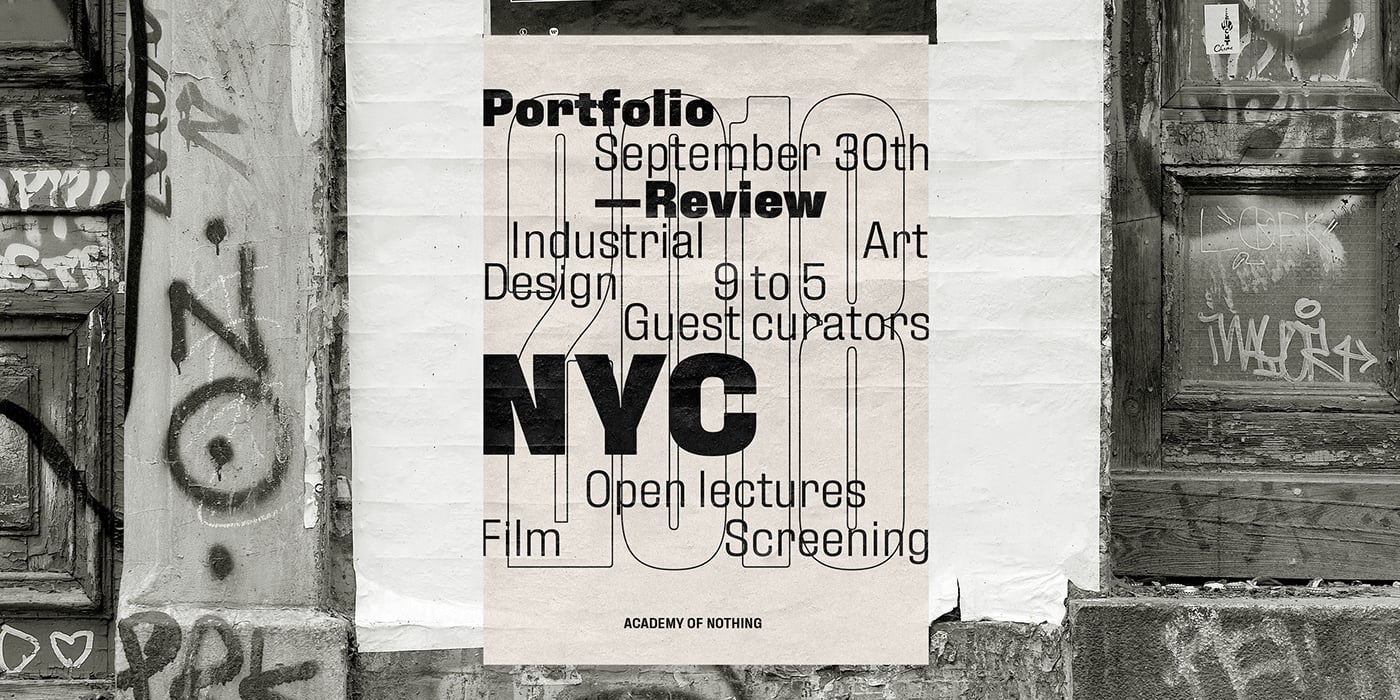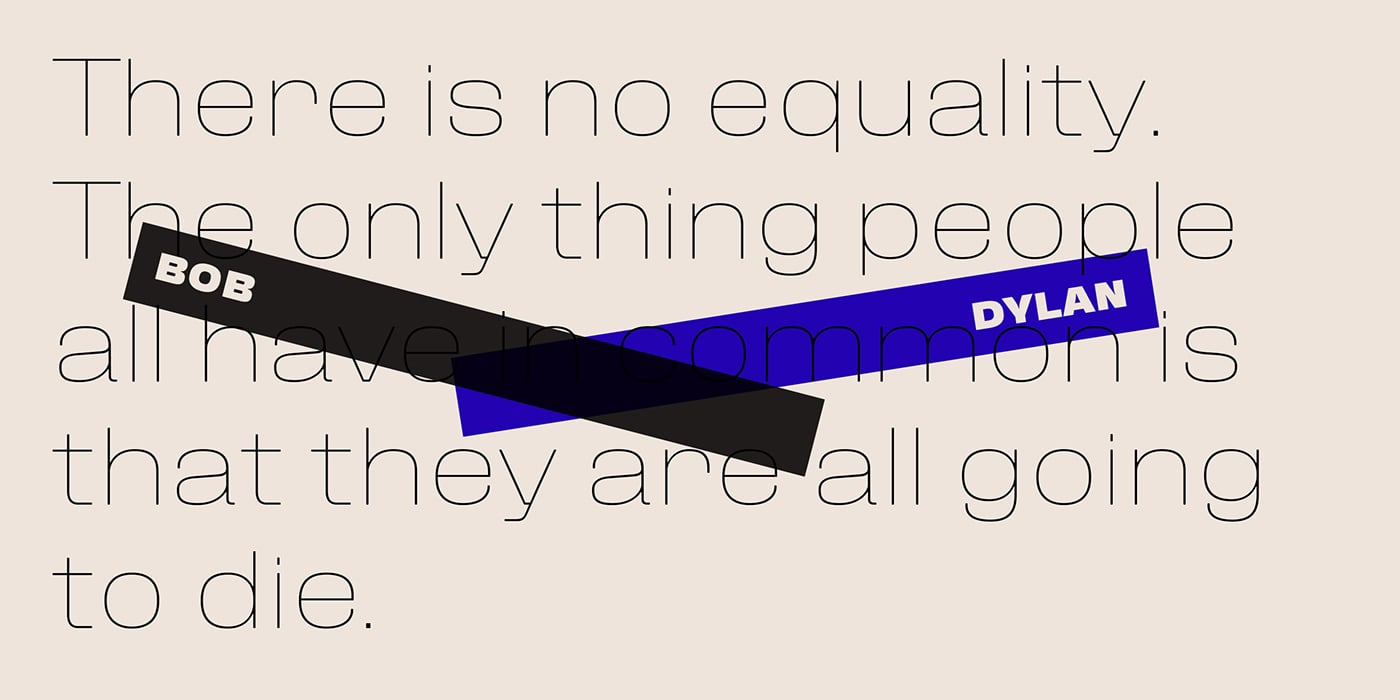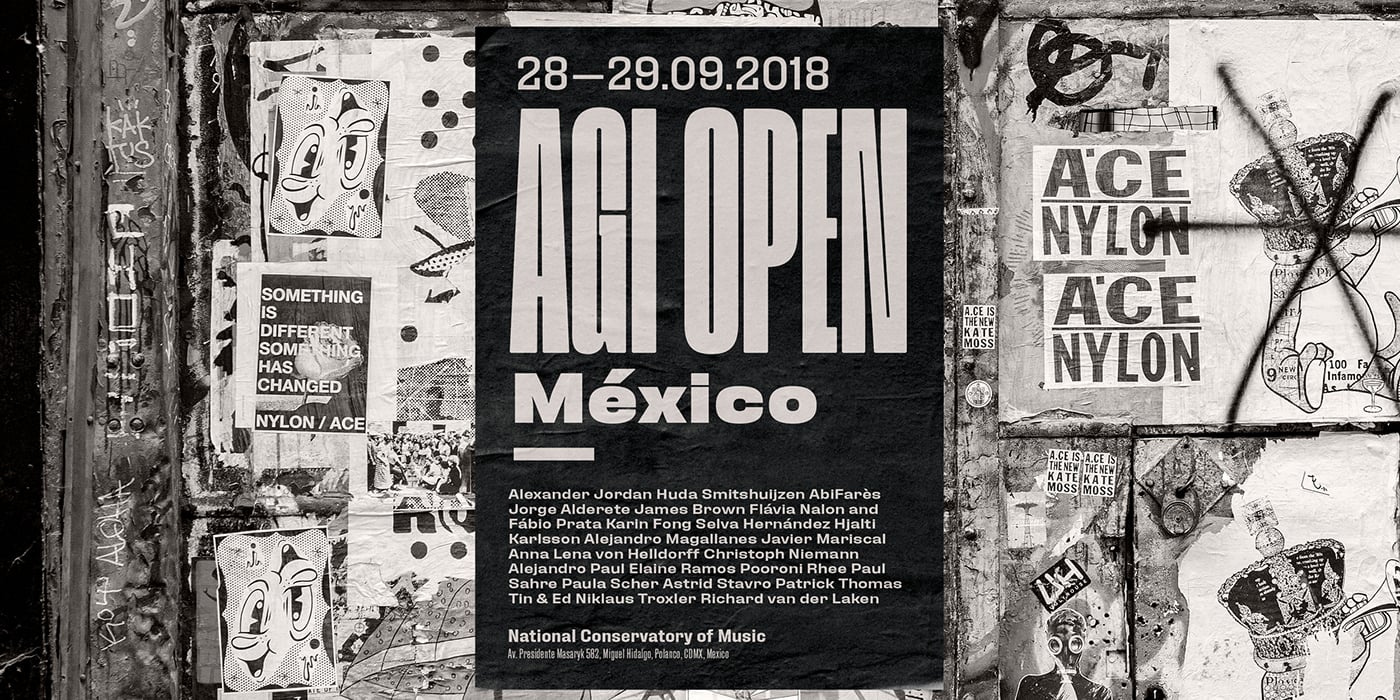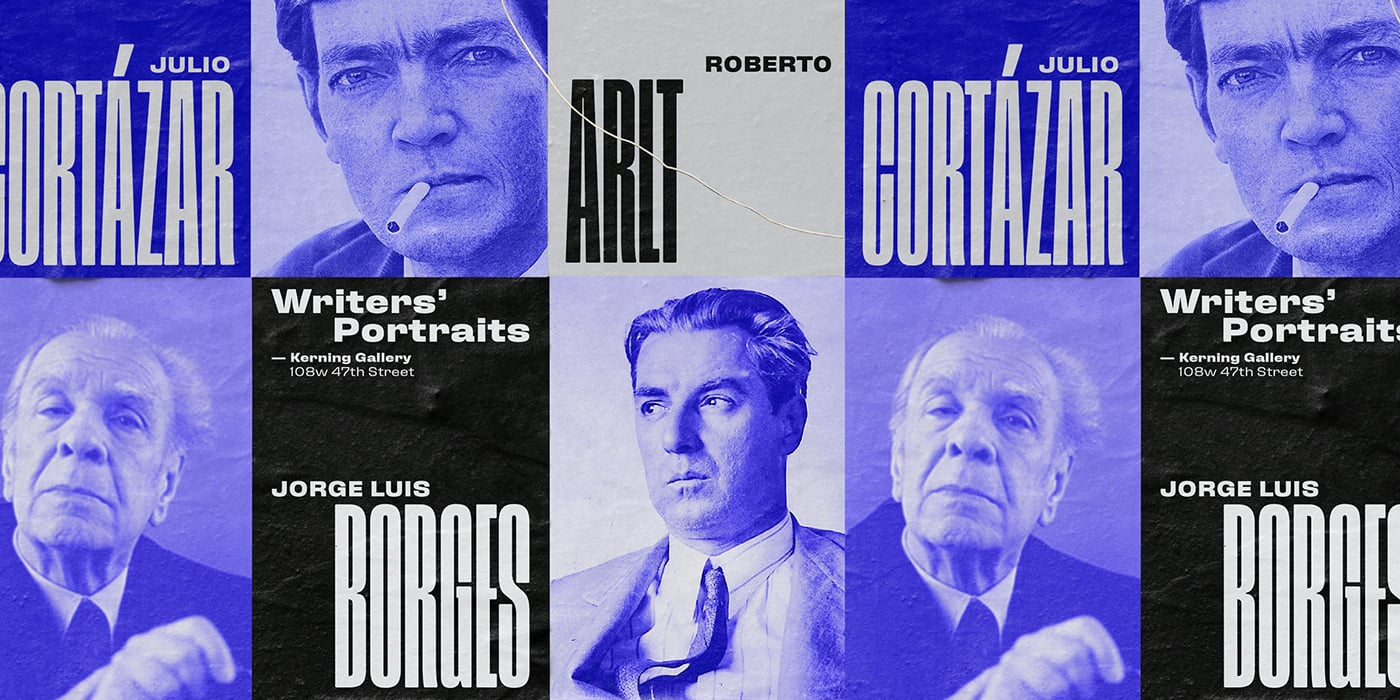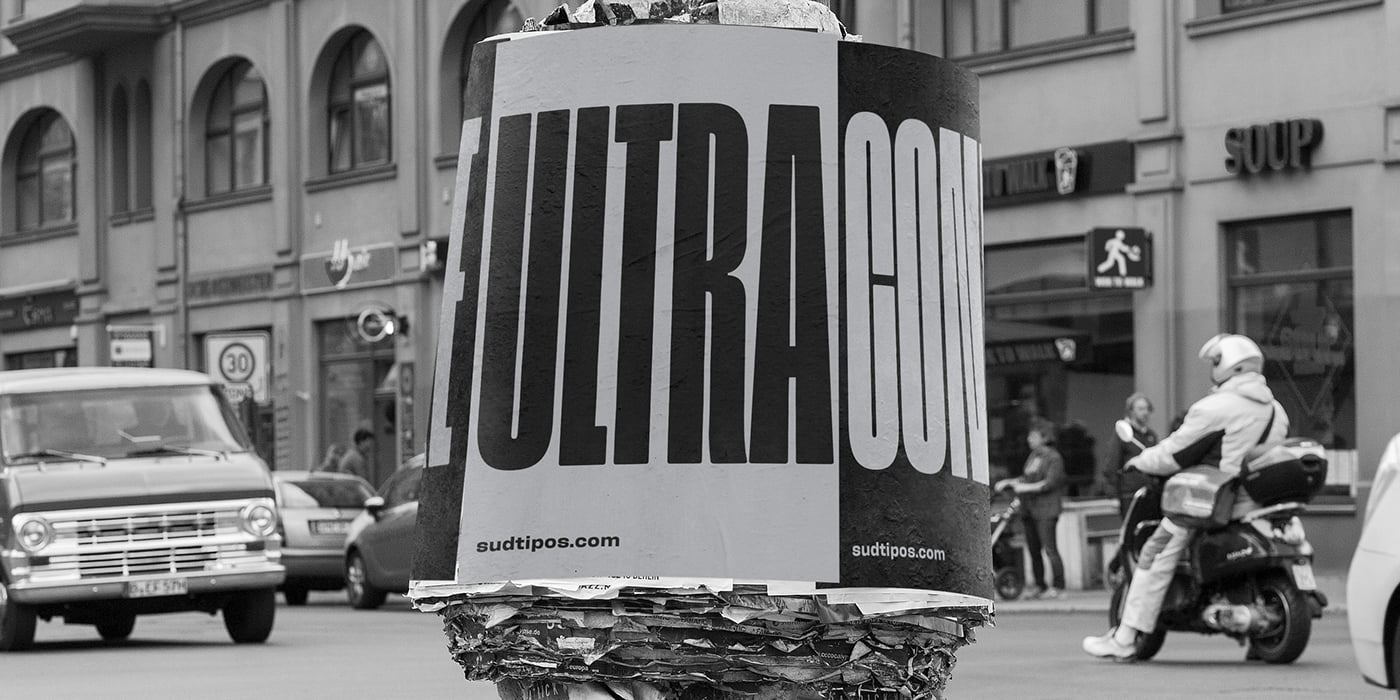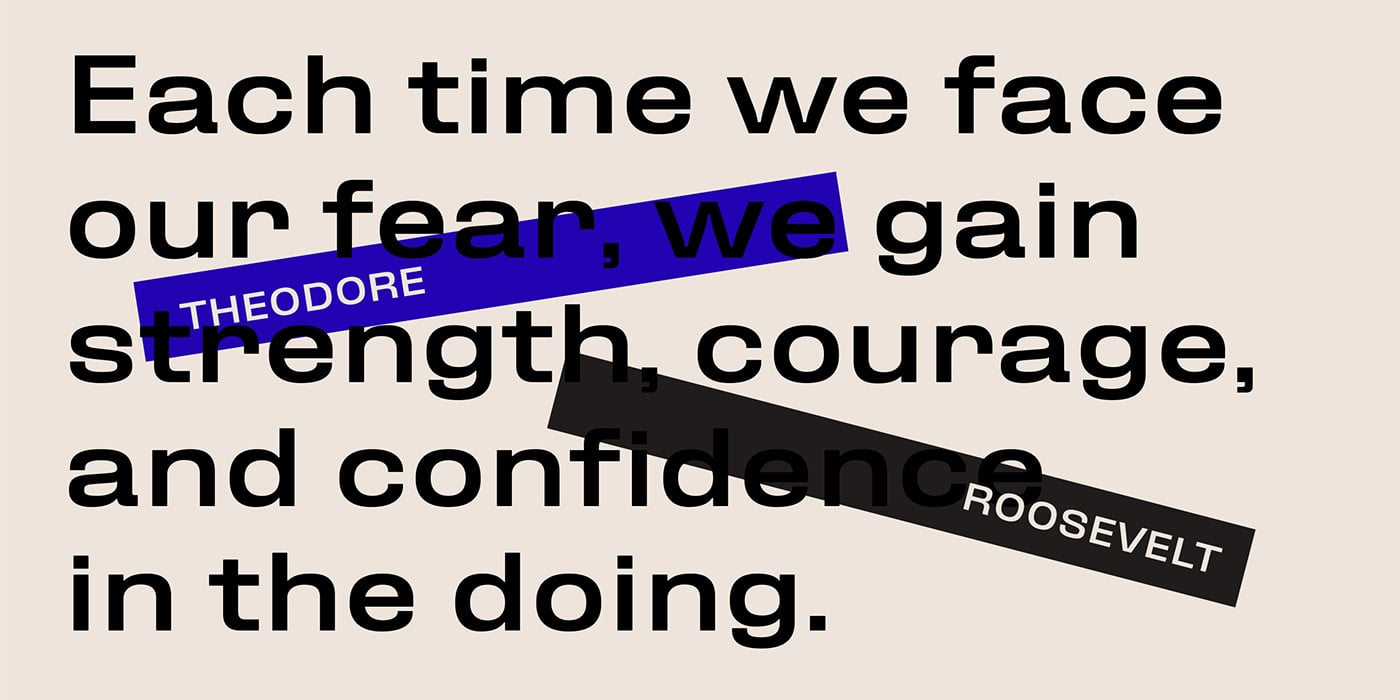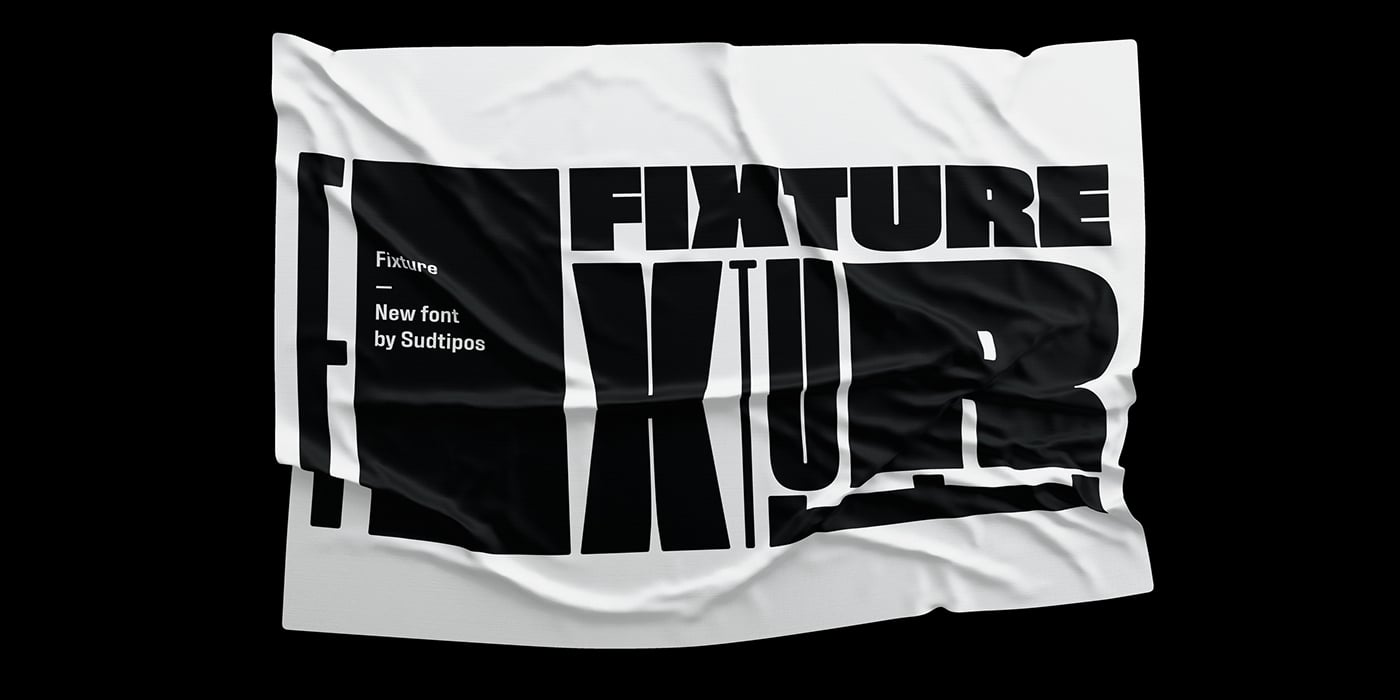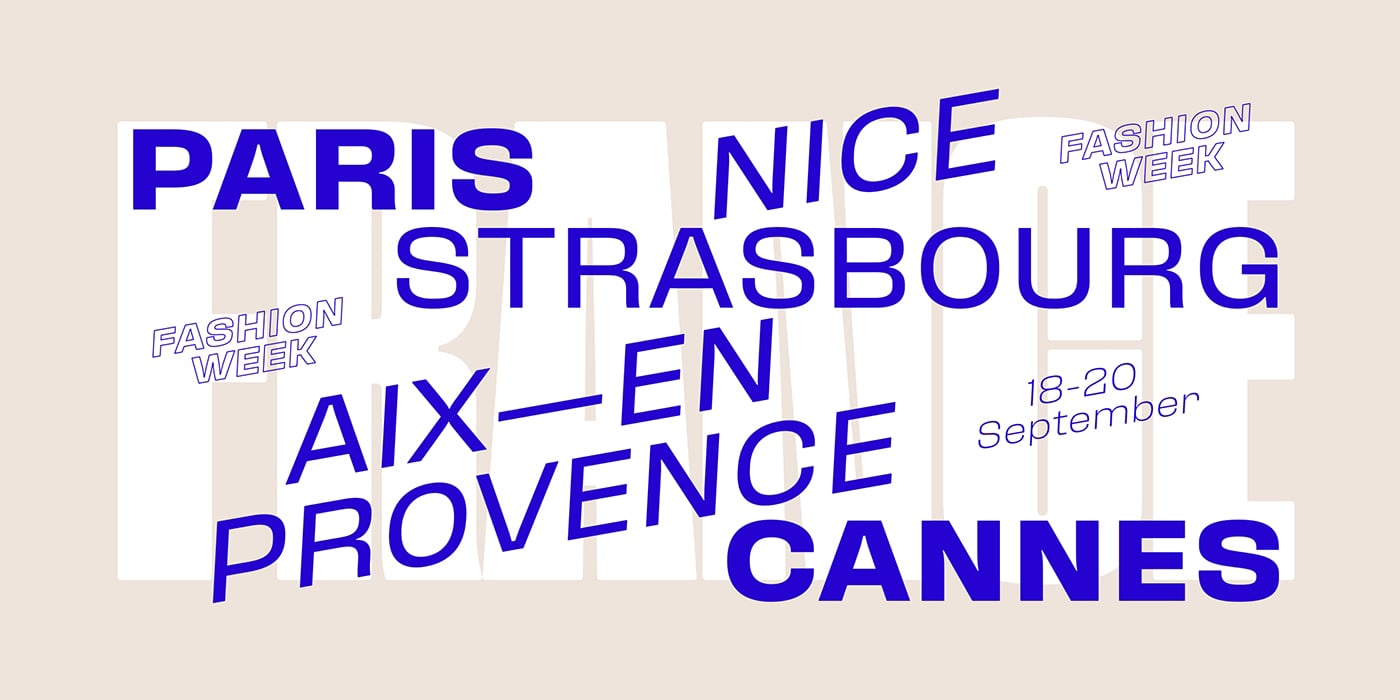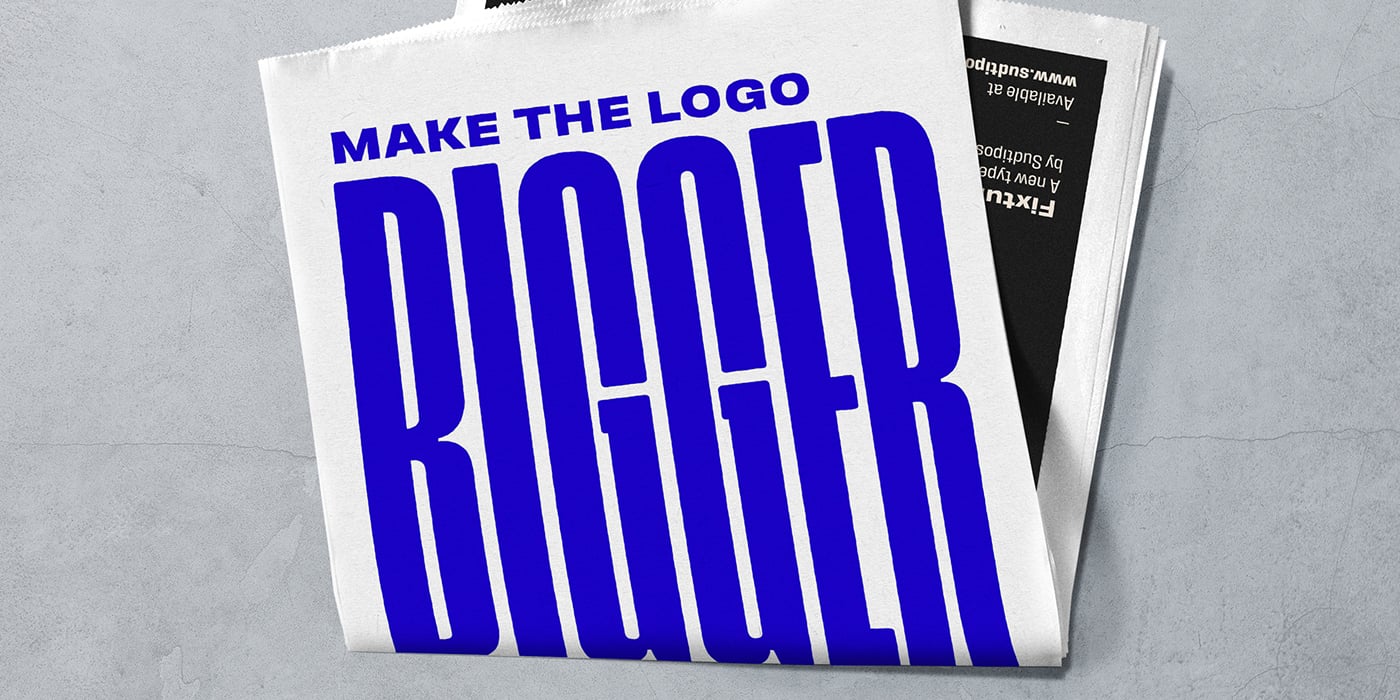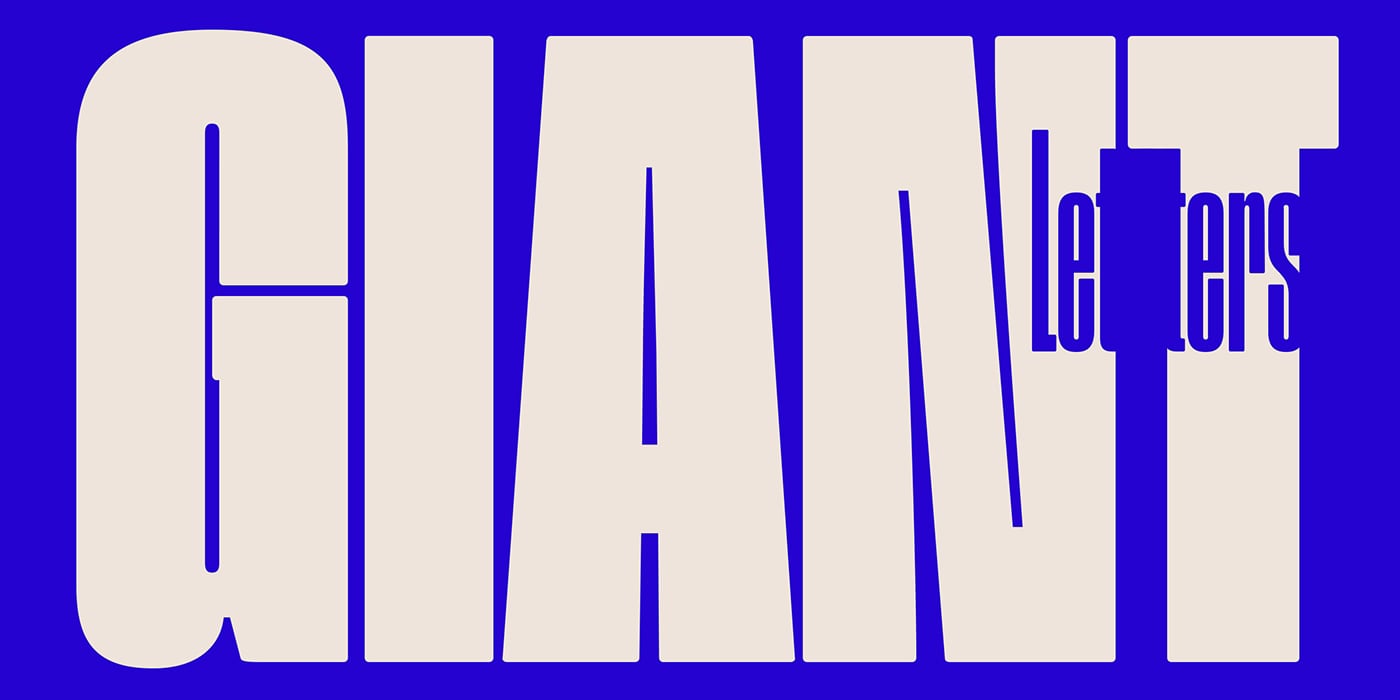
Beautiful new Fixture typeface by Sudtipos.
Fixture is the foundry's massive 72-font take on plentiful offerings of the late 19th century/u2019s typefaces, posters and wood letterpress sundry done in the Grotesk genre. Four widths ranging from Ultra Compressed to Expanded each come in nine weights and accompanying italics. Some common sans-serif alternates, such as the a and g, are included in all the fonts.
The idea with this design was to put together a workhorse font family with enough functional flexibility to work in multiple environments, from the subtlety of magazine layout or film credits to the visual drama of billboards or packaging./u00a0
Aesthetically speaking, it is quite interesting /u2014 though in retrospect quite unintentional /u2014 that each different width and/or weight of this face ended up pulling a different dominant trait from the melting-pot origins of the entire family. It/u2019s almost like a tribute album to some famous band/u2019s covers of older songs. It may also be a good conversation piece on our tools shaping the very things for which they/u2019re used. Can/u2019t really get any more post-Grotesk than this. In the 21st century, this is the one genre to rule them all.